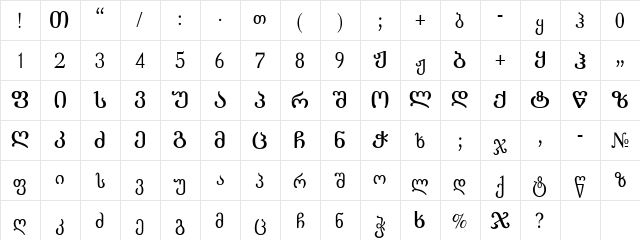
LiteraturuliCond-GGE Regular
Design Context for LiteraturuliCond-GGE Typeface
LiteraturuliCond-GGE offers clean, dependable letterforms without strong stylistic allegiance, making it a practical choice for designers who need flexibility. The condensed width makes it efficient for tight spaces without sacrificing legibility.